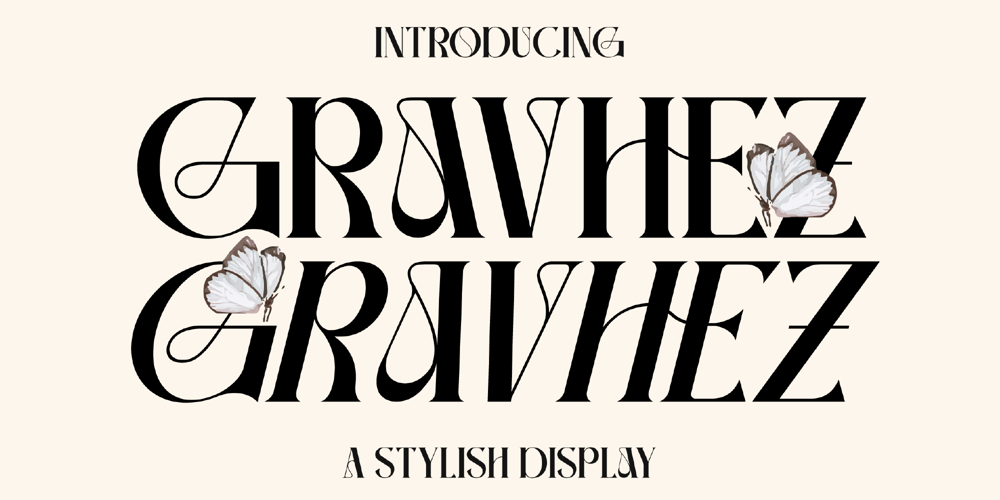
Gravhez Font Family was designed by Heru Utama Putra and published by Letterena Studios. Gravhez contains 2 styles and family package options. GRAVHEZ is a serif modern and classic typeface that its own unique style & modern look.This typeface is perfect for an elegant & luxury logo, book or movie title design, fashion brand, magazine, clothes, lettering, quotes, and so much more.This font is PUA encoded which means you can access all of the amazing glyphs and ligatures with ease!**Uppercase